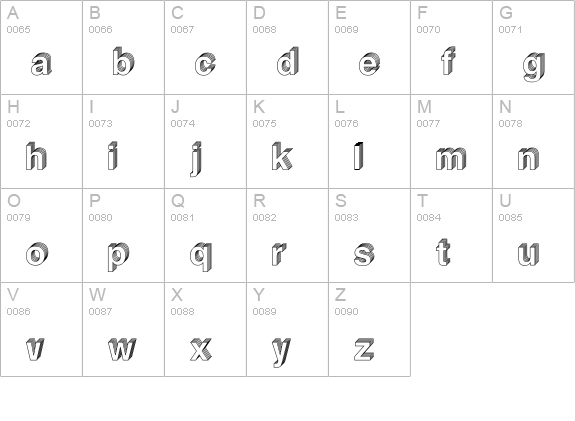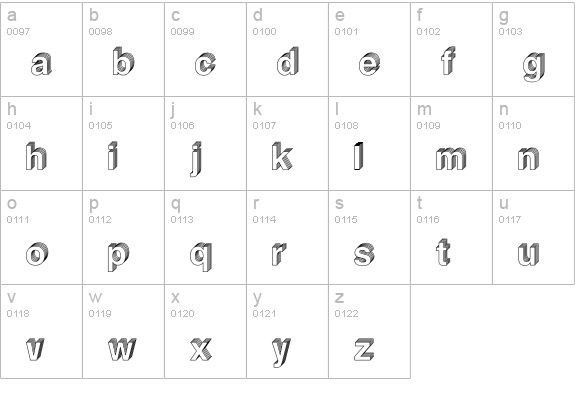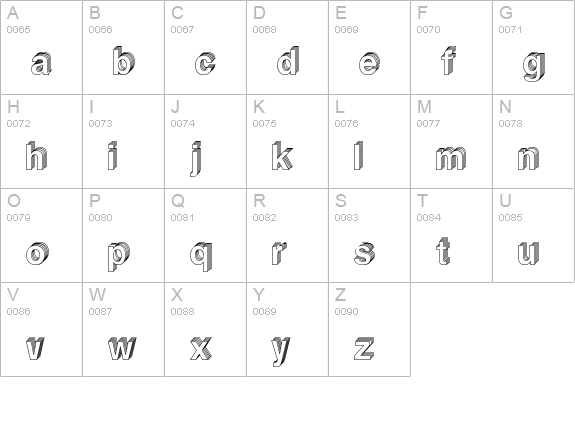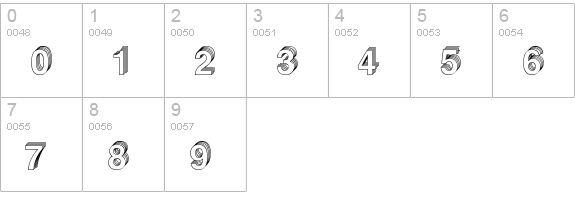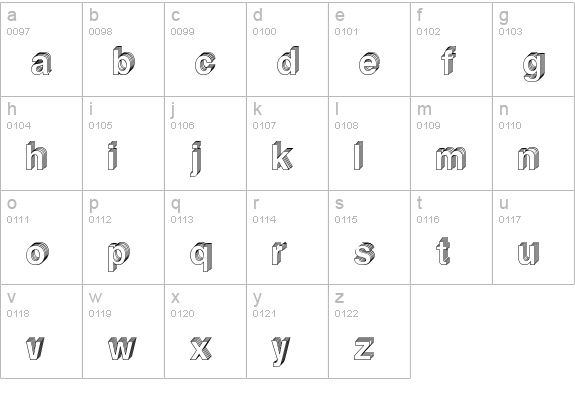
LevelTwo Font Details
LevelTwo font is a modern and stylish typeface that exudes sophistication and elegance. With its clean lines and sleek design, LevelTwo is perfect for a wide range of design projects, from branding to editorial design. This versatile font is sure to make your text stand out and leave a lasting impression on your audience. What's even better is that LevelTwo font is available for free download at FontsMarket.com. So, you can easily add this beautiful font to your collection without breaking the bank. Don't miss out on the opportunity to elevate your designs with the sleek and contemporary look of LevelTwo font. Download it today and start creating stunning visuals that will captivate your audience.